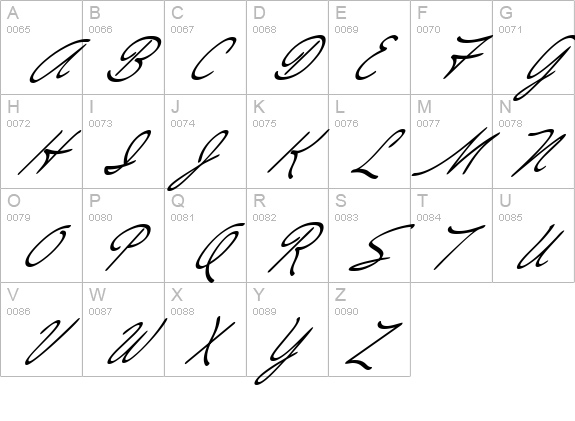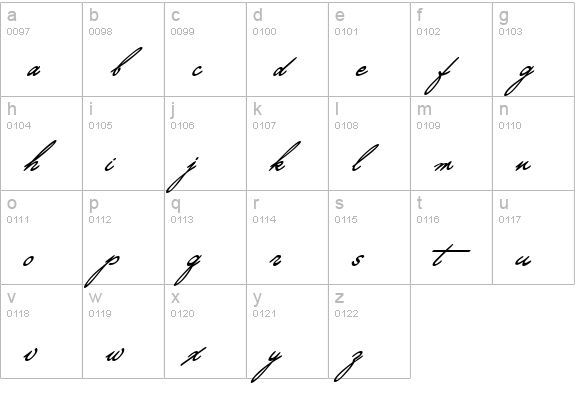
Directors ScriptBig Caps Font Details
The Directors ScriptBig Caps font is a stunning and elegant typeface that exudes sophistication and class. Its bold and decorative uppercase letters make a strong visual impact, perfect for creating eye-catching headlines and titles. This versatile font is ideal for various design projects, from branding to editorial design. The best part is, the Directors ScriptBig Caps font is available for free download at FontsMarket.com! Whether you're a professional designer or a hobbyist looking to add some flair to your projects, this font is a must-have in your collection. Don't miss out on the opportunity to enhance your designs with this exquisite font, download it for free today!